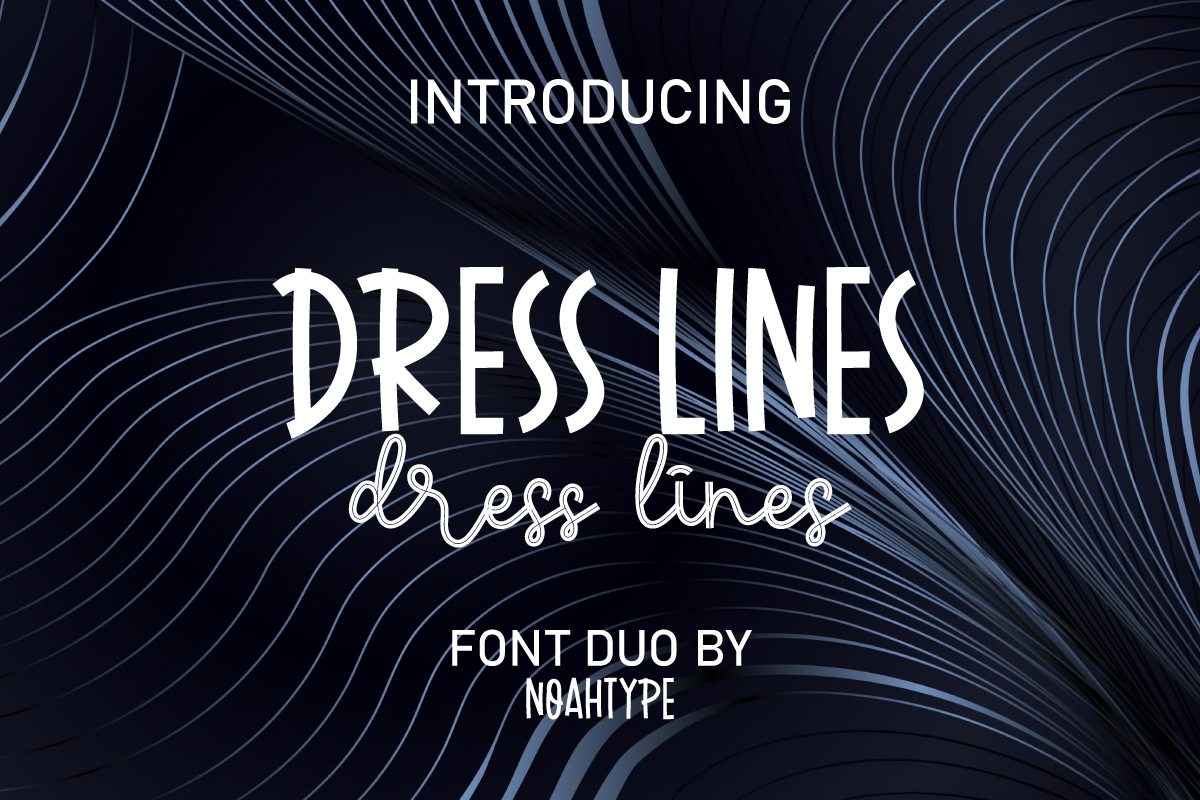
Dress Lines Font
Dress Lines Font Duo
This is a perfect blend of two different types of fonts designed by NoahType. This font has a funny sans display and a script with a special feature of stripes which makes it modern, unique and easy to read. It will be amazing for any project: billboard, brand logo, brochure, business card, headline, invitation, mockup design, product packaging, signage, and more.
Dress Lines Font includes full set of Uppercase and Lowercase Basic Characters, Numerals and Punctuation. Also it contains ligatures to make it flawless characters that add more aesthetic fonts to enhance your extraordinary projects. It will be perfect for any industry such as café, catering, food, movie, tourism, publishing, writer, and more.